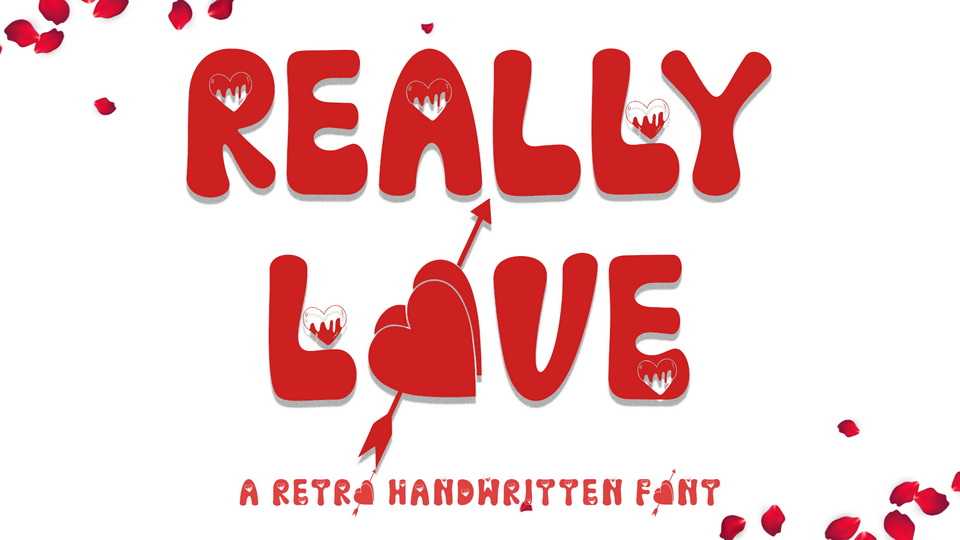
Download Really Love font, a very unique and beautiful retro typeface. It is suitable for Valentine’s Day moments, weddings, engagements, photography, and others.